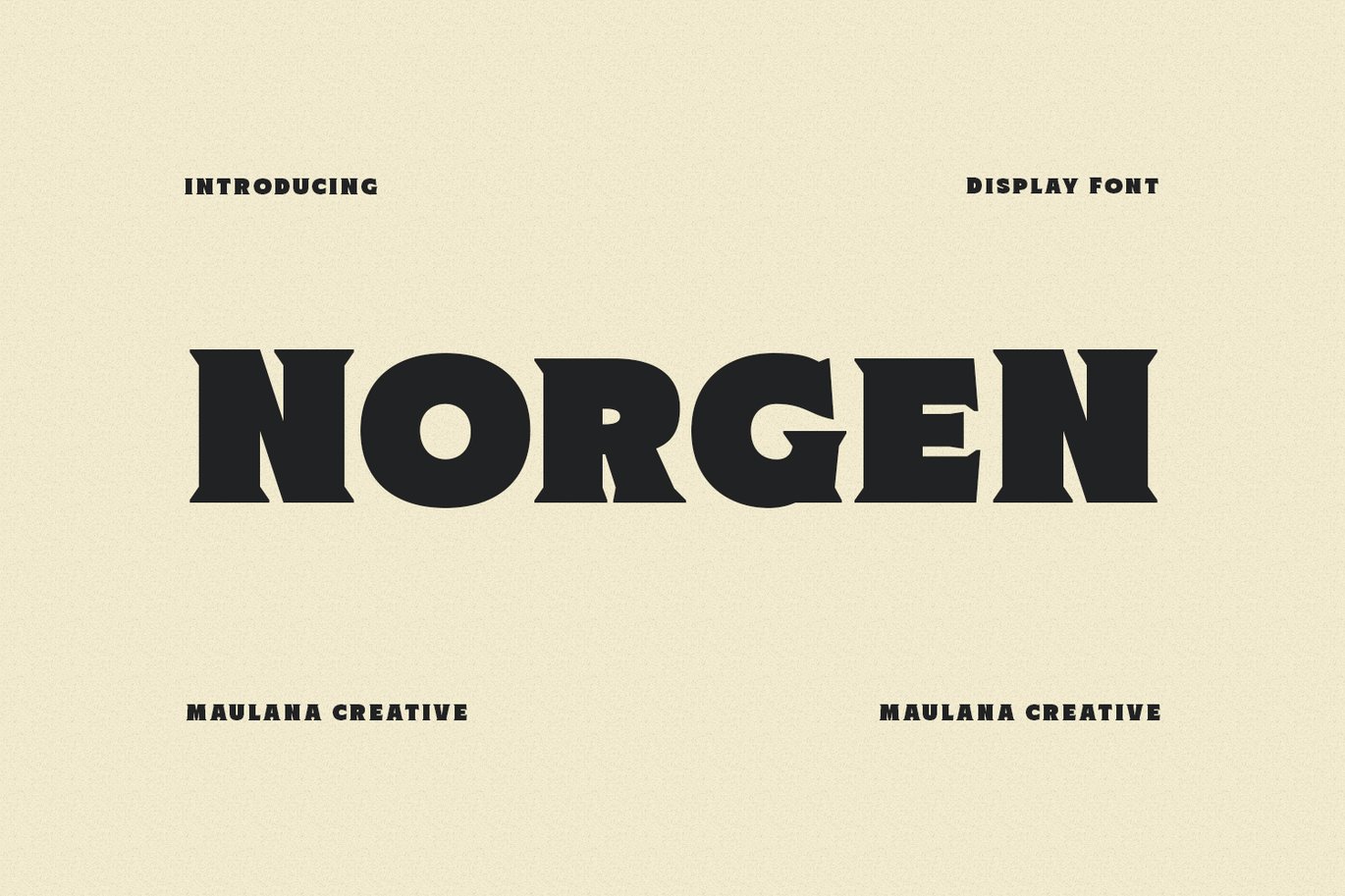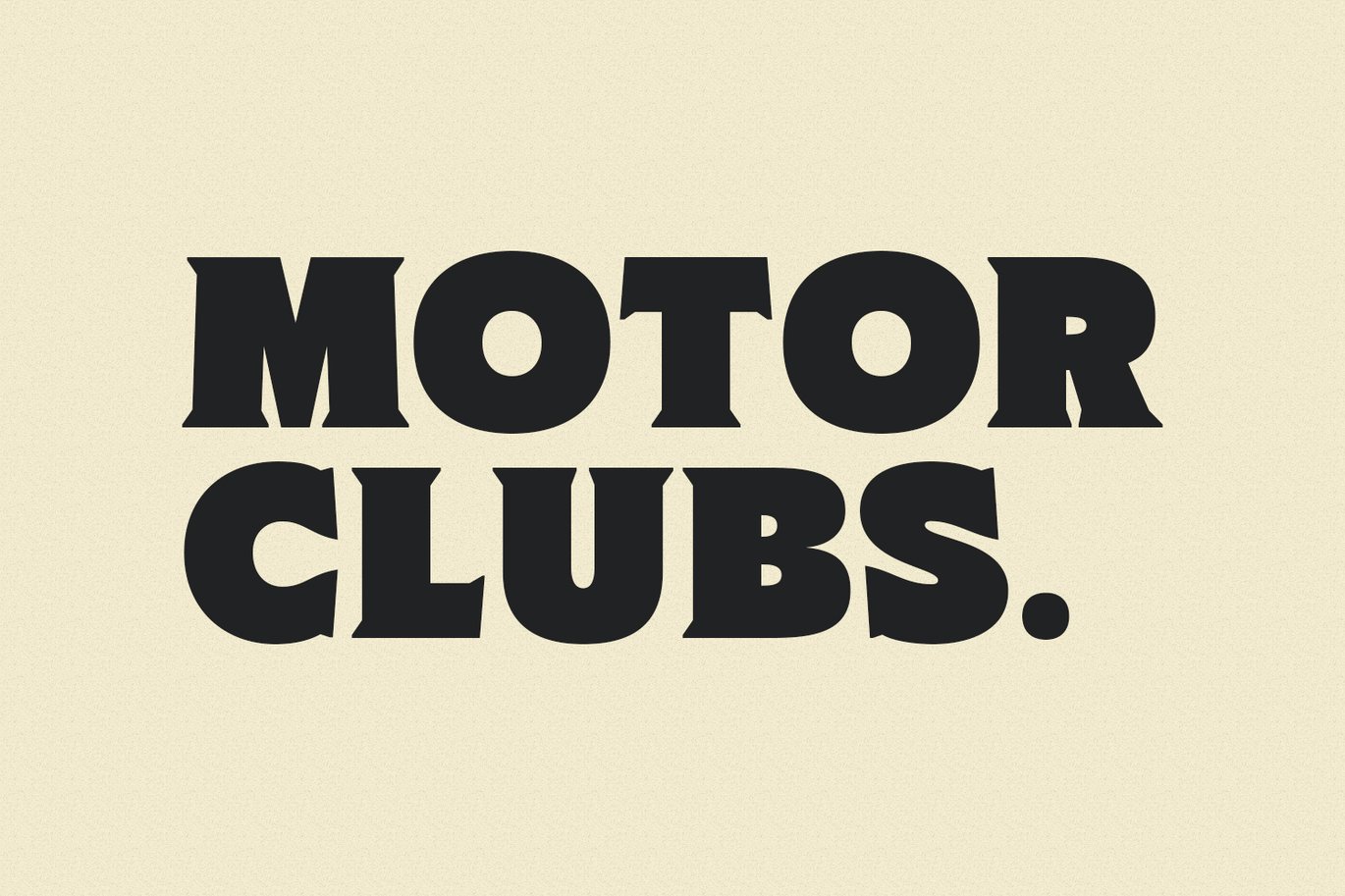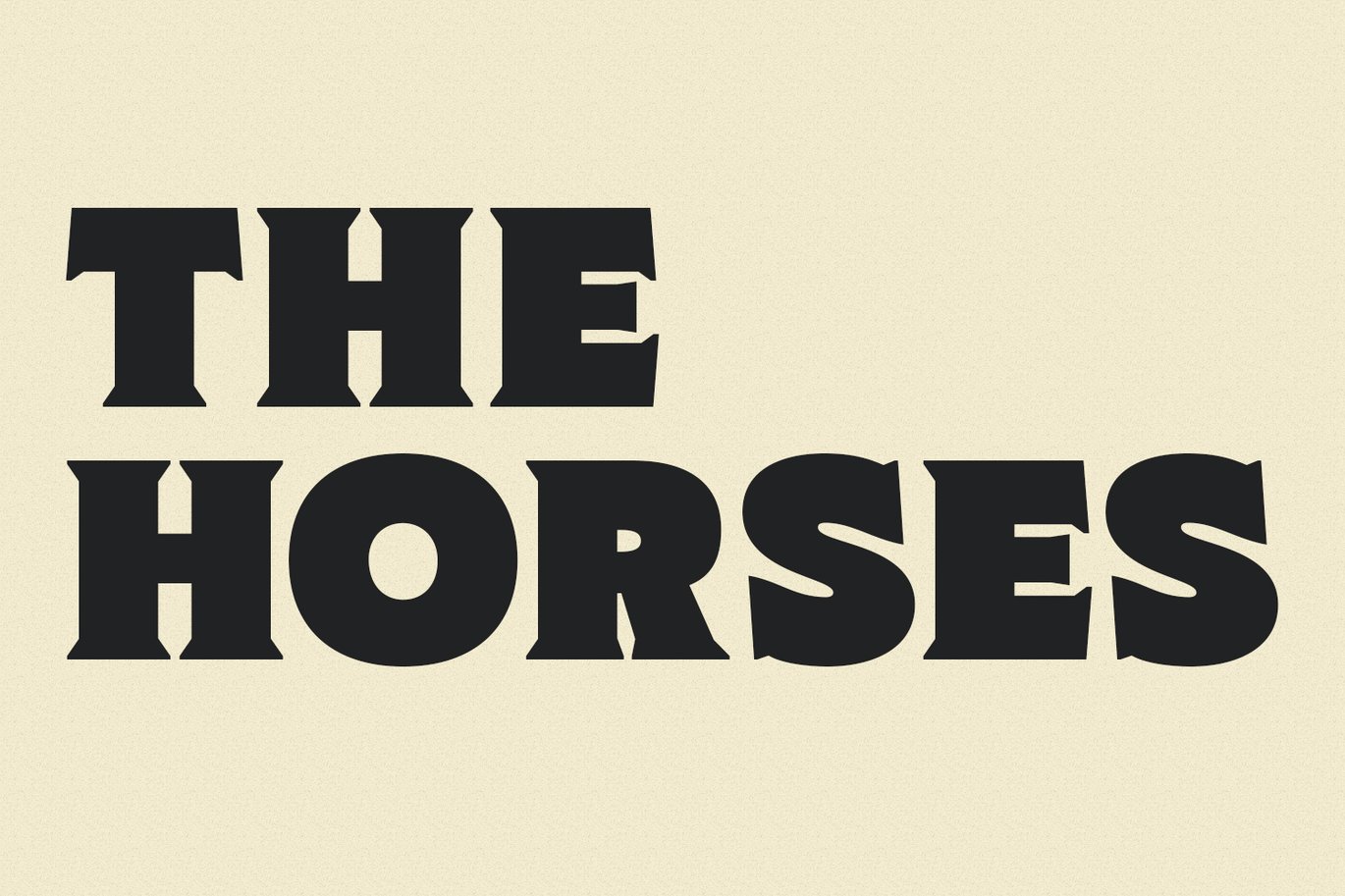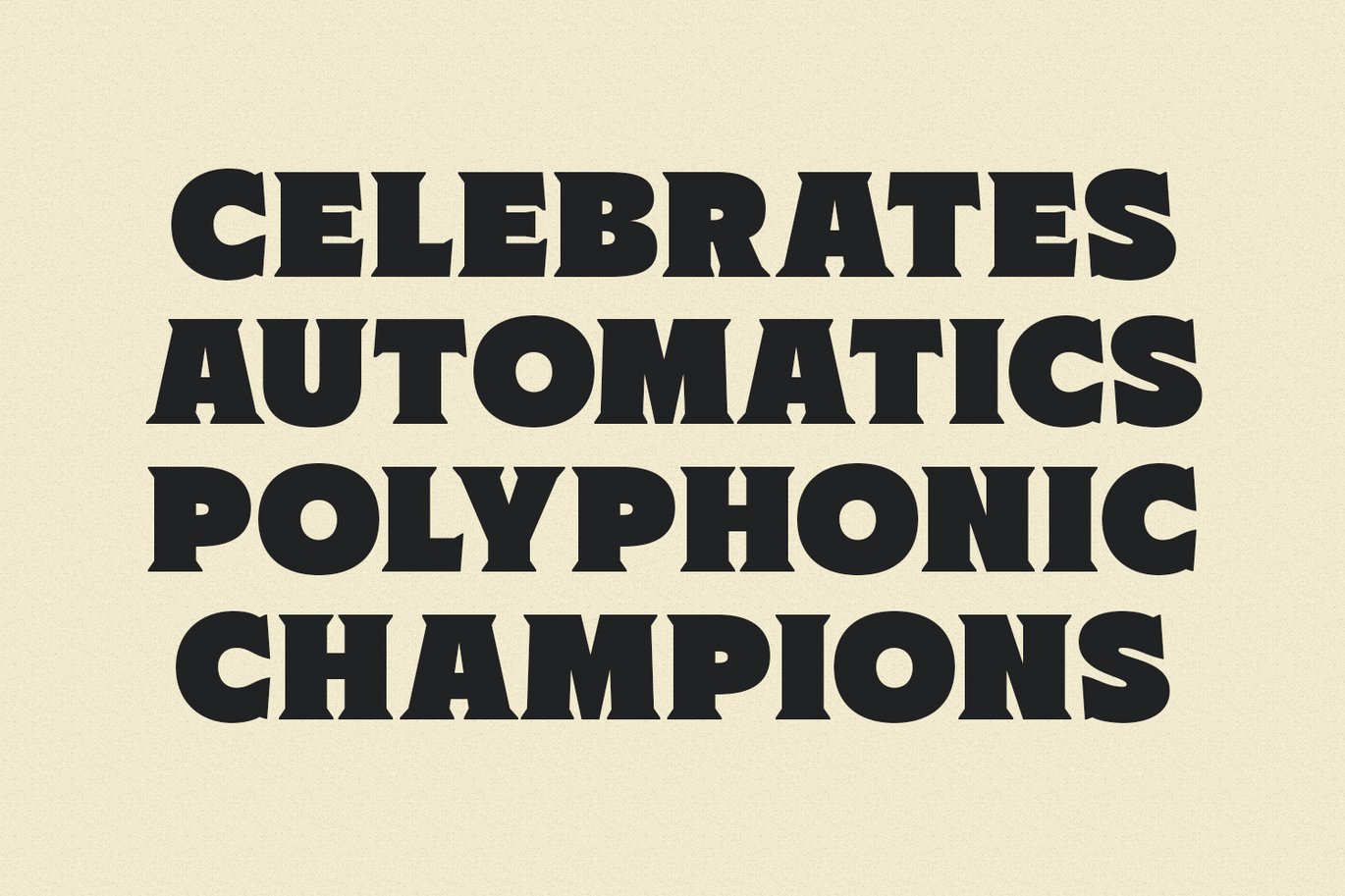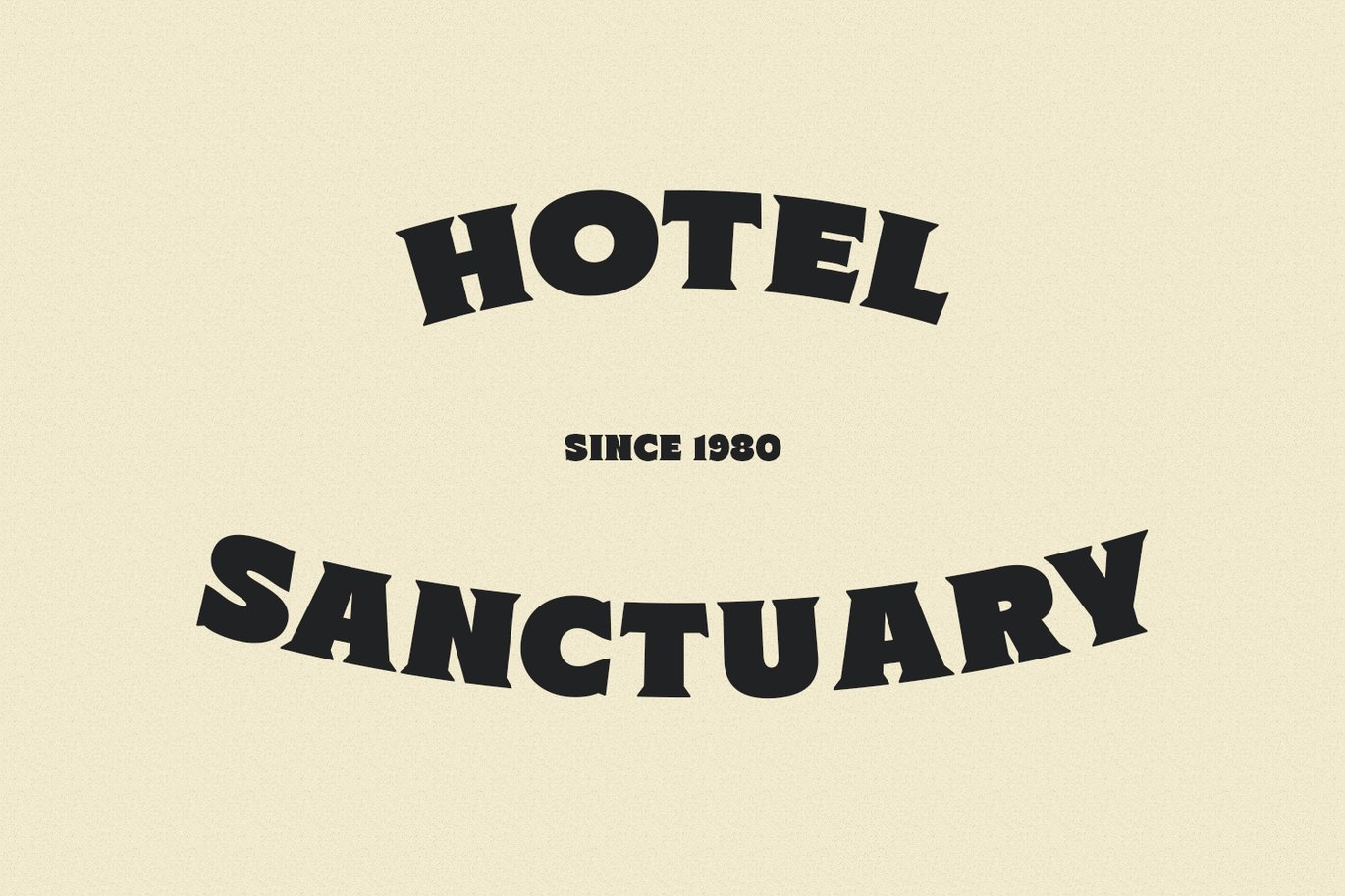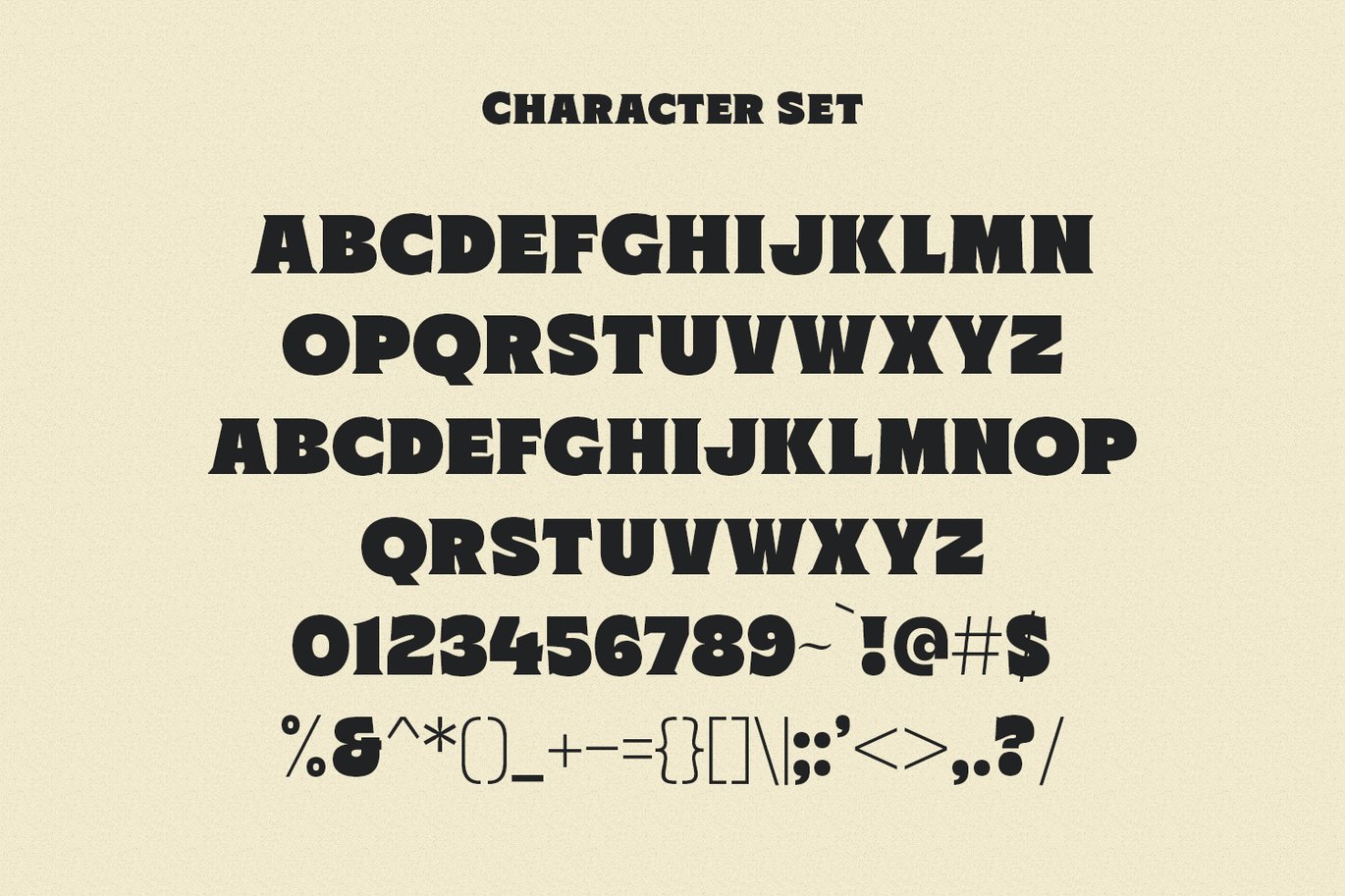
Norgen Heavy Serif Font
Norgen is a heavy serif display font. Heavy stroke, fun character with a bit of ligatures. To give you an extra creative work. Norgen font support multilingual more than 100+ language. This font is good for logo design, Social media, Movie Titles, Books Titles, a short text even a long text letter and good for your secondary text font with script or Sans. Make a stunning work with Norgen font.